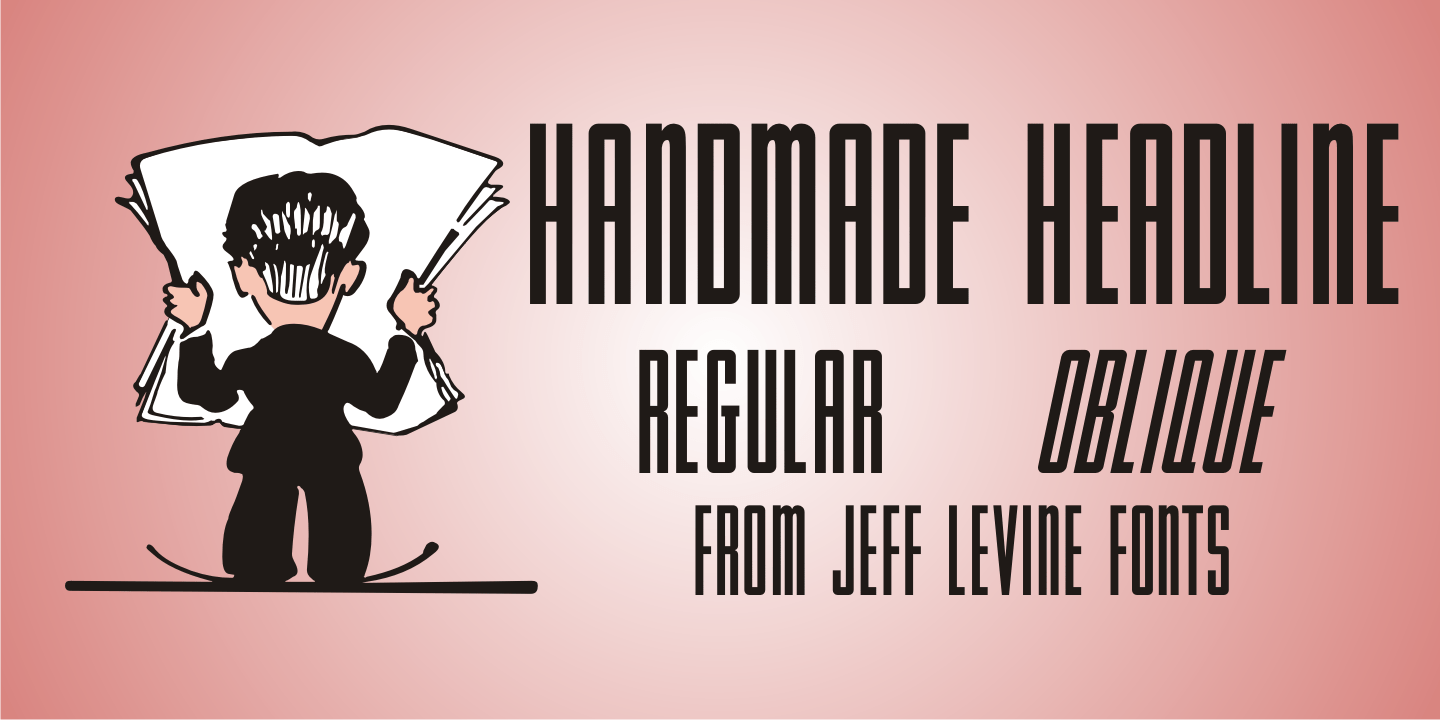
Handmade Headline
Hand lettered titling on the 1945 sheet music for 'Don't Forget To-Night, To-Morrow” is in a simple, condensed sans serif style with a slight hint of Art Deco influence.
This is now available as Handmade Headline JNL, in both regular and oblique versions.